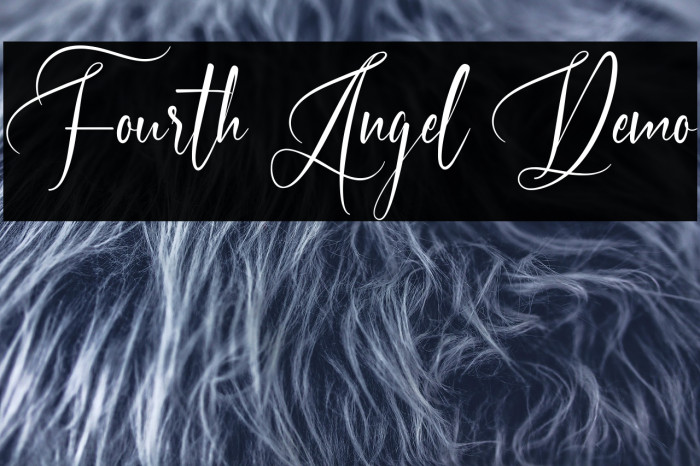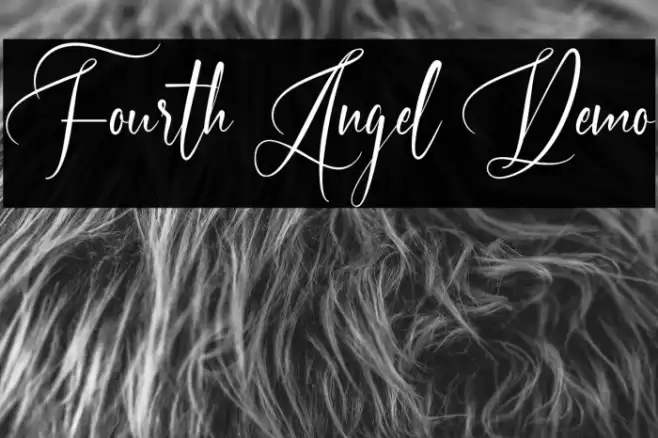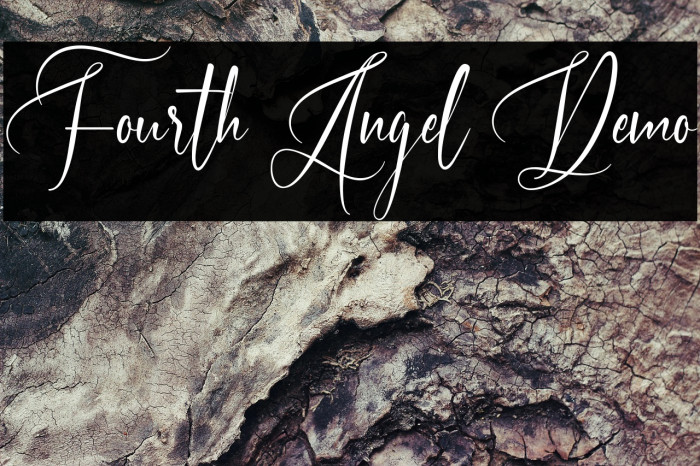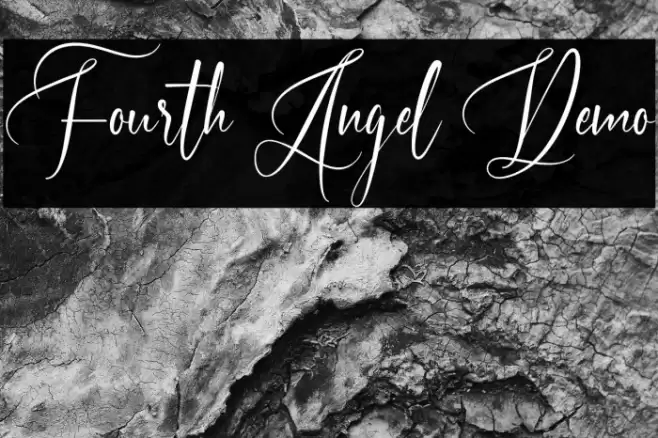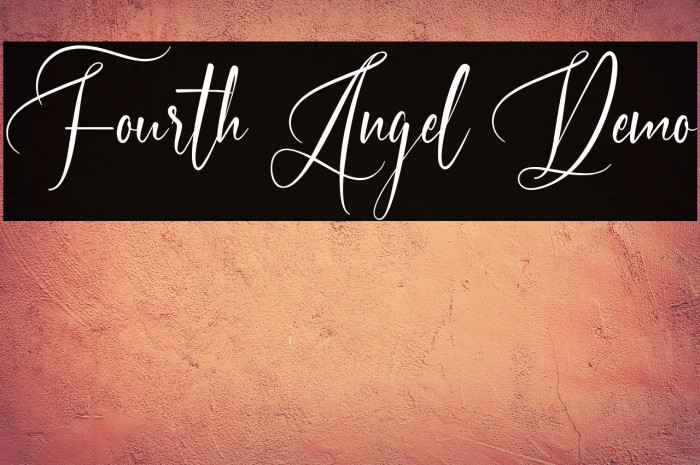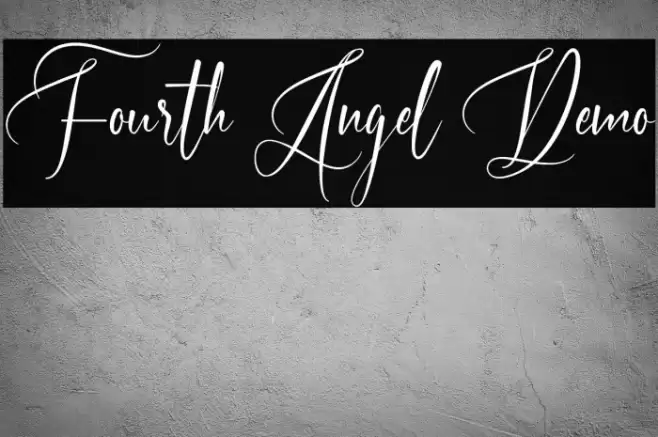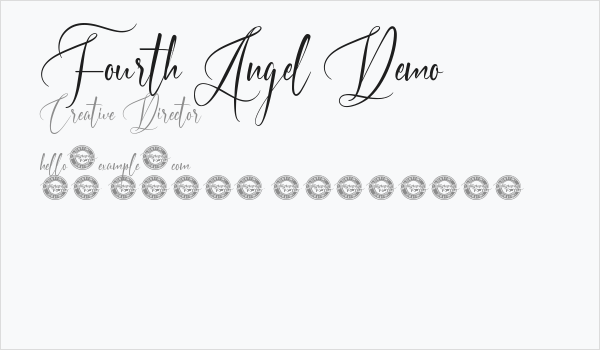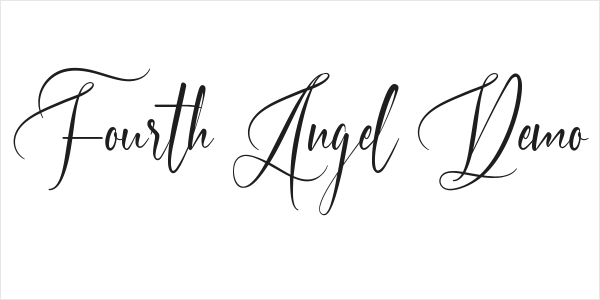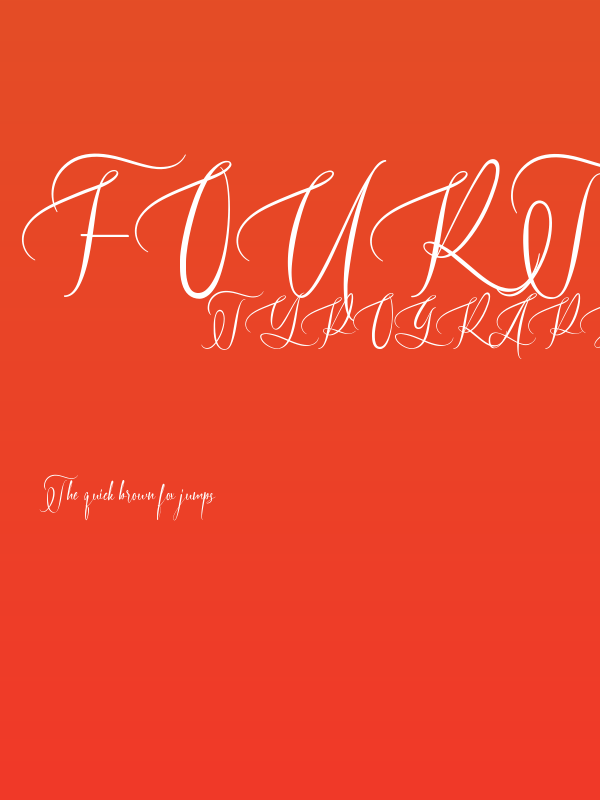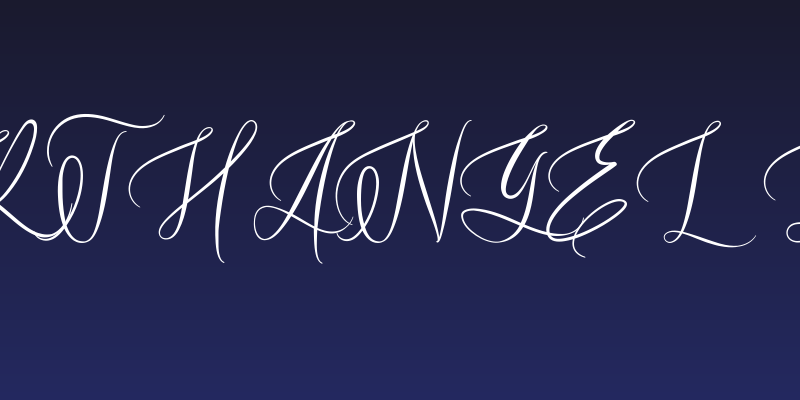
Fourth Angel Demo Font
Fourth Angel Demo Description
This font features an elegant and flowing script style, characterized by its cursive, handwritten appearance. The uppercase letters are intricately designed with loops and flourishes, giving a sense of sophistication and grace. The lowercase letters maintain a consistent flow, with some characters extending below the baseline, adding to the font's dynamic nature. The numerals and special characters are crafted to match the overall aesthetic, ensuring a cohesive look. This font is ideal for projects that require a touch of elegance and personal flair.
| Proposed Projects | Wedding invitations, greeting cards, branding, and logo design. |